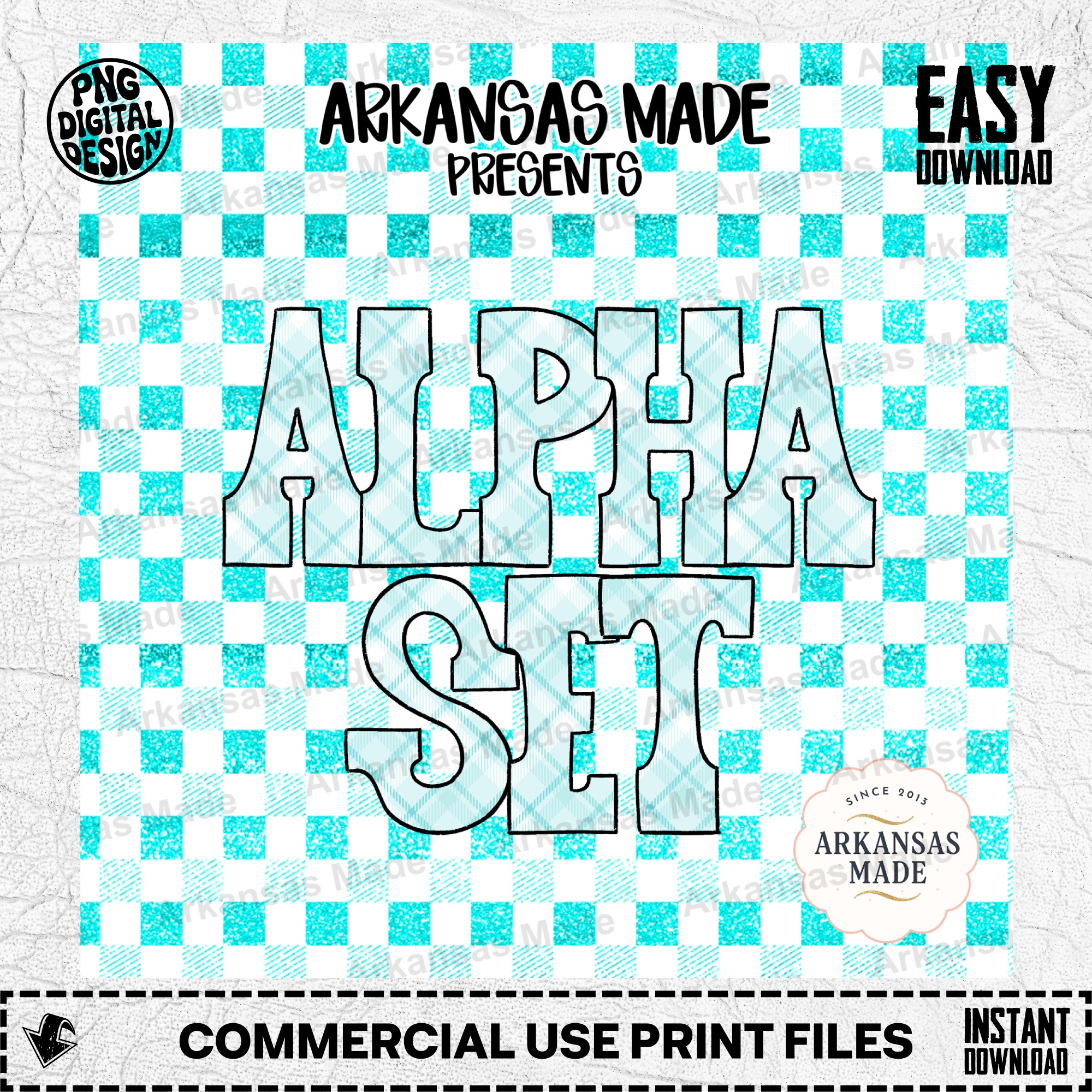
Aqua Blue Plaid Glitter Alpha PNGs, Full Alphabet & Numbers Set, Digital Download Letters, Crafters Font Pack, Faux Glitter Plaid PNG Bundle
Sparkle up your designs with these gorgeous Aqua Blue Plaid Glitter Alpha PNGs, a full alphabet and numbers set for digital download. Perfect for crafters and designers, this versatile collection features a unique blend of faux blue glitter texture and a charming plaid effect. Ideal for creating custom t-shirts, tumblers, invitations, or personalized gifts for baby showers, birthdays, or unique nursery decor. An essential digital craft supply for adding a vibrant touch to any creative project or small business graphic.